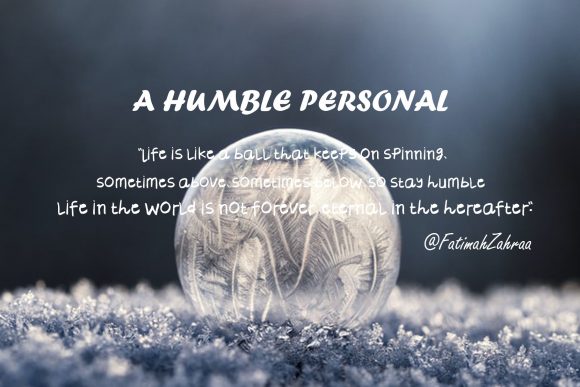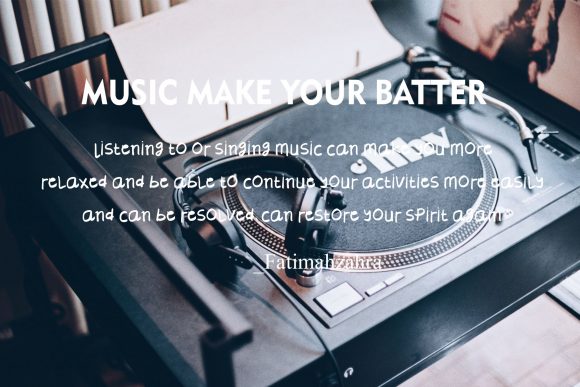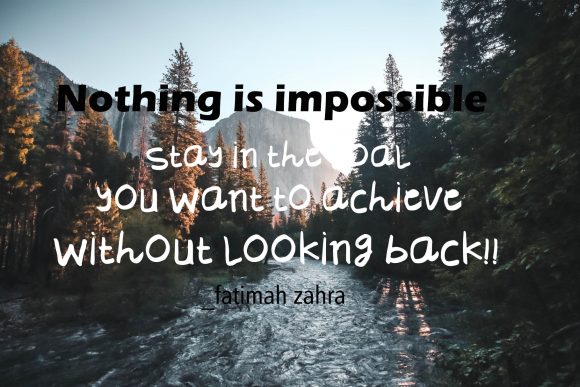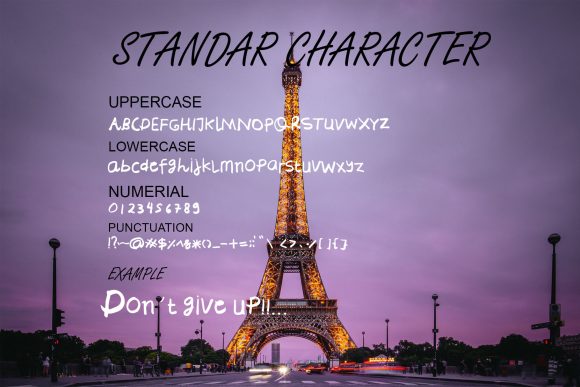
Introducing Fans Serries Font: The Perfect Handwritten Companion for Your Design Projects
Are you tired of using generic, overused fonts in your design projects? Do you want to add a personal touch to your creations and make them stand out from the crowd? Look no further than Fans Serries Font, a beautiful, natural, and simple handwritten font that’s perfect for designers and crafters alike.
What is Fans Serries Font?
Fans Serries Font is a carefully crafted handwritten font that’s designed to bring a touch of elegance and sophistication to your projects. As described, “Fans Serries is a natural and simple handwritten font. Not too thin and not too thick, balanced and varied, this font was designed to enhance the beauty of your projects.” With its balanced and varied strokes, this font is ideal for a wide range of design applications, from branding and advertising to crafting and DIY projects.
Key Features of Fans Serries Font
- Natural and Simple: Fans Serries Font boasts a natural, effortless look that’s perfect for creating a warm and inviting atmosphere in your designs.
- Balanced and Varied: The font’s balanced strokes and varied letterforms ensure that your text remains legible and visually appealing, even at smaller sizes.
- Not too Thin or too Thick: The font’s moderate weight makes it suitable for a wide range of design applications, from digital media to print materials.
- Handwritten Charm: Fans Serries Font retains the charm and character of handwritten text, making it perfect for designs that require a personal touch.
Why Choose Fans Serries Font?
With so many fonts available, why should you choose Fans Serries Font for your design projects? Here are just a few compelling reasons:
- Unique and Creative: Fans Serries Font offers a fresh and unique perspective on handwritten typography, allowing you to create designs that stand out from the crowd.
- Versatile: The font’s versatility makes it suitable for a wide range of design applications, from logos and branding to social media graphics and crafting projects.
- Easy to Read: Despite its creative and artistic nature, Fans Serries Font remains highly legible, making it perfect for designs that require a clear and concise message.
- Time-Saving: With Fans Serries Font, you can create professional-looking designs in a fraction of the time it would take to create custom lettering or illustrations.
How to Use Fans Serries Font in Your Design Projects
Ready to incorporate Fans Serries Font into your design workflow? Here are a few tips to get you started:
- Pair it with Other Fonts: Experiment with pairing Fans Serries Font with other fonts to create visually appealing contrast and hierarchy in your designs.
- Use it for Headings and Titles: Fans Serries Font is perfect for headings, titles, and other display text, where its creative and artistic nature can shine.
- Add it to Your Brand Identity: Consider incorporating Fans Serries Font into your brand identity, such as in logos, social media graphics, or packaging materials.
- Experiment with Colors and Textures: Don’t be afraid to experiment with different colors and textures to add depth and visual interest to your designs.
In conclusion, Fans Serries Font is a beautiful, natural, and simple handwritten font that’s perfect for designers and crafters looking to add a personal touch to their projects. With its balanced and varied strokes, moderate weight, and creative charm, this font is sure to enhance the beauty of your designs and help you stand out from the crowd. So why wait? Download Fans Serries Font today and take your design projects to the next level!